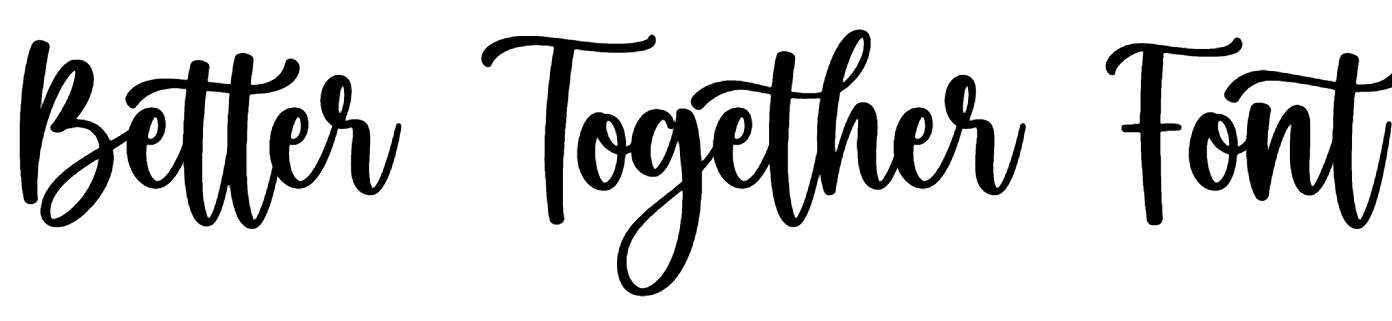
Better Together
Better Together is a calligraphy font designed by Aldi Raya Pradipta and published by Graphix Line Studio (2021). The letters have the smooth movement of real pen lettering, which is why even a single name looks special in it. You can download it for free and test it with your own words in the preview above.
- Extra characters: 13 copy-and-paste alternates (Private Use Area)
What You Can Type With Better Together
Better Together covers the full alphabet in upper and lowercase, plus all ten numbers, so you can set names, dates and prices without switching fonts. Common punctuation such as &, !, ? and @ is included as well. It also has the accented letters you need for Spanish, French, Portuguese and Italian.
How to Use the Alternate Letters in Better Together
Its 13 alternates are stored as separate characters, so you can copy them from Character Map on Windows or Font Book on a Mac and paste them anywhere, including Cricut Design Space and Canva. Its ligatures switch on by themselves in most design apps: certain letter pairs join into one specially drawn shape.
Where Better Together Works Best
Designers usually reach for fonts like Better Together when they're making wedding invitations, certificates and elegant quotes. Its lowercase letters are small compared to the capitals, so set it a size or two bigger than usual. Script fonts read best in short bursts, so keep it to names, titles and one-line quotes. Skip all caps: script capitals are drawn to start a word, not to fill one.
How do I get the alternate letters and swashes in Better Together?
The 13 alternates are separate characters, so copy them from Character Map on Windows or Font Book on a Mac and paste them into your text. This works in Cricut Design Space and Canva too.
Does Better Together support accented letters?
Yes. Better Together includes the accented letters needed for Spanish, French, Portuguese and Italian, so it works for more than just English.